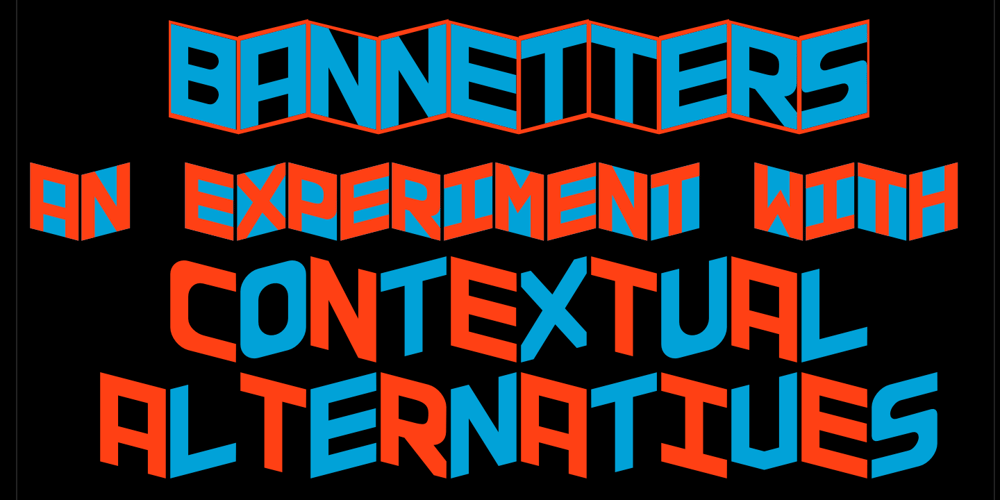
Bannetters
Bannetters font
Bannetters Font Family was designed by Robert Schenk and published by Ingrimayne Type. Bannetters contains 2 styles and family package options. Bannetters (Banner Letters) was designed to alternate two letter sets. Both sets are formed on parallelograms, with one set of parallelograms sloped upward to the right and the other sloped downward to the right. When alternated, the result is a zigzaggy line of text. In applications that support the OpenType feature contextual alternatives (calt), the two sets of letters are automatically alternated. The Bannetters family has two styles, one with straight outer edges and the other that rounds these shapes for letters that have curved exteriors. Both styles are largely monospaced and monoline (not to mention weird, strange, and unusual). The tiling pattern of text created by Bannetters makes it attention-grabbing and appropriate for signage, posters, advertising, and other uses where eye-catching text is desired.